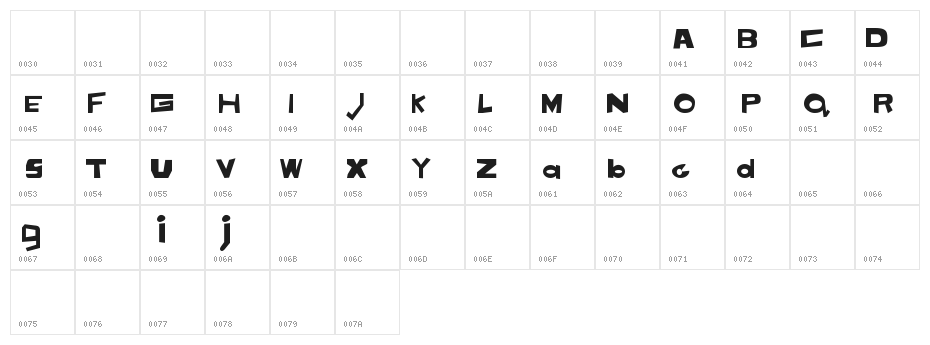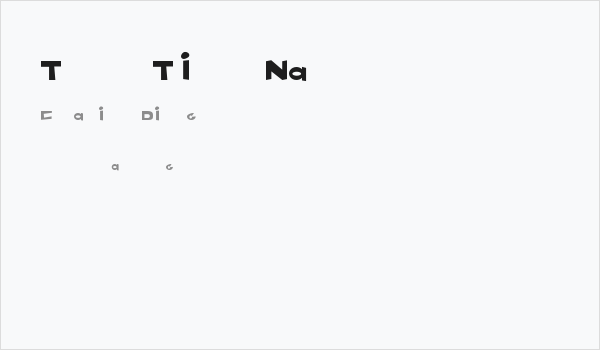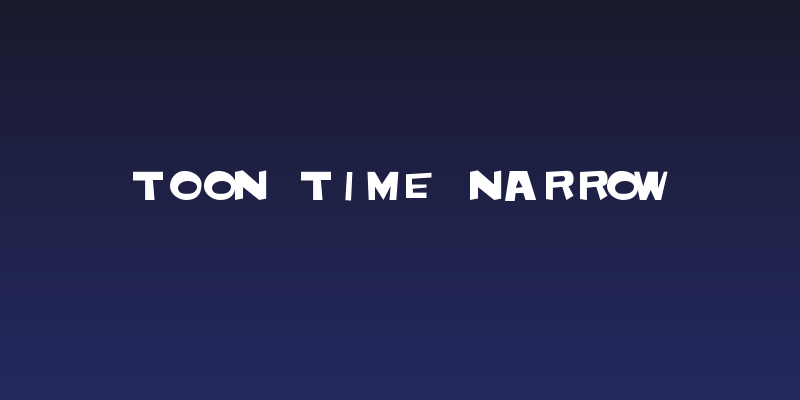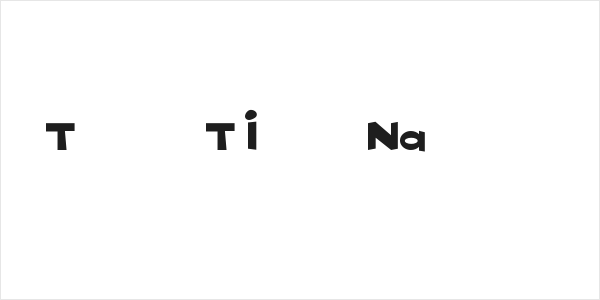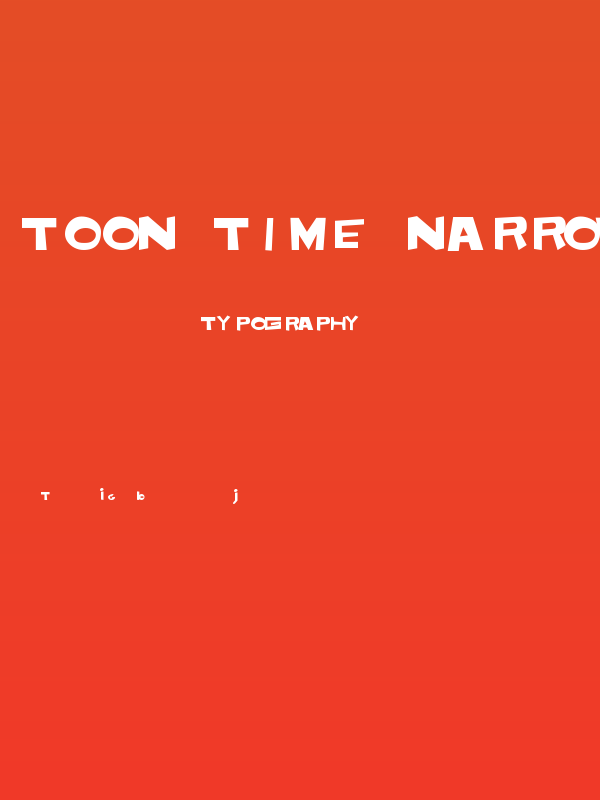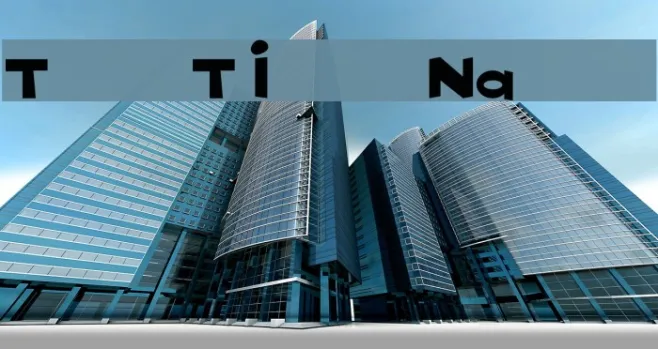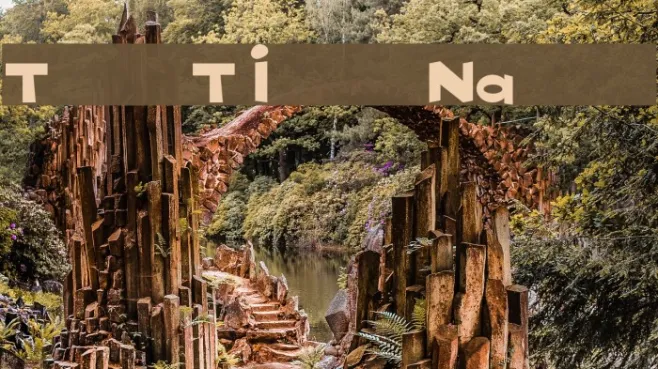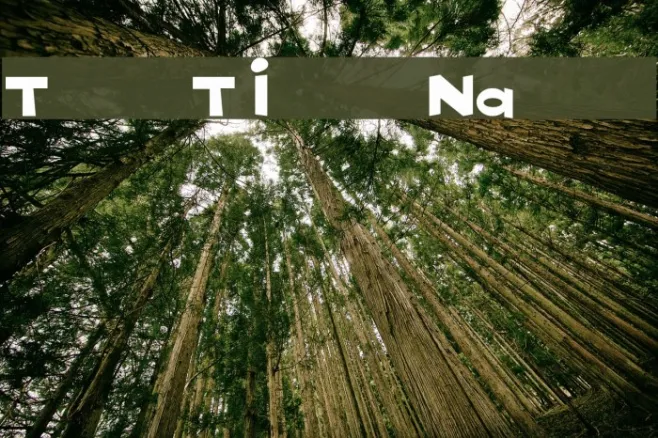
Toon-Time Narrow Font
Toon-Time Narrow Description
This font features a playful and quirky design, characterized by its bold and irregular shapes. The letters exhibit a cartoonish style with exaggerated angles and varying stroke widths, giving it a dynamic and energetic appearance. The uppercase letters are particularly distinctive, with some characters having unique embellishments that add to the whimsical feel. The lowercase letters maintain the same playful essence, with a slightly more compact form. Overall, this font exudes a sense of fun and creativity, making it ideal for projects that require a lively and informal touch.
| Overall Style | Playful, Cartoonish, Energetic |
| Proposed Projects | Ideal for children's books, comic strips, playful branding, and animated video titles. |